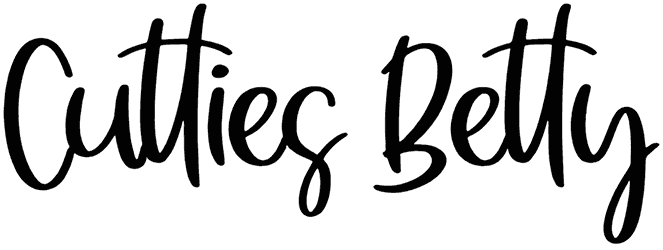
Cutties Betty Font
While there are many types of fonts in your collection, we guarantee that none will be as versatile or valuable as Cutties Betty. This thank you font is often used for long pieces of text, but it can be equally helpful for headline fonts or many other purposes.
The rhythmic and eye-catching twists of this script font make viewers focus on the text to read the content and, despite the decrease in readability, significantly increase the beauty and effect of the text.